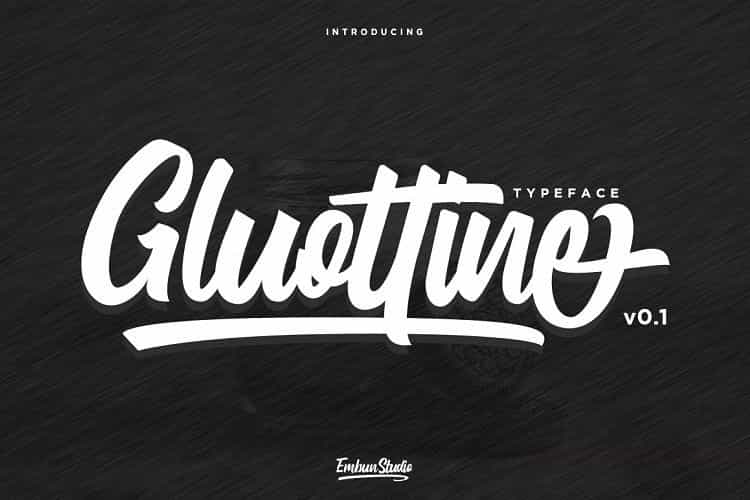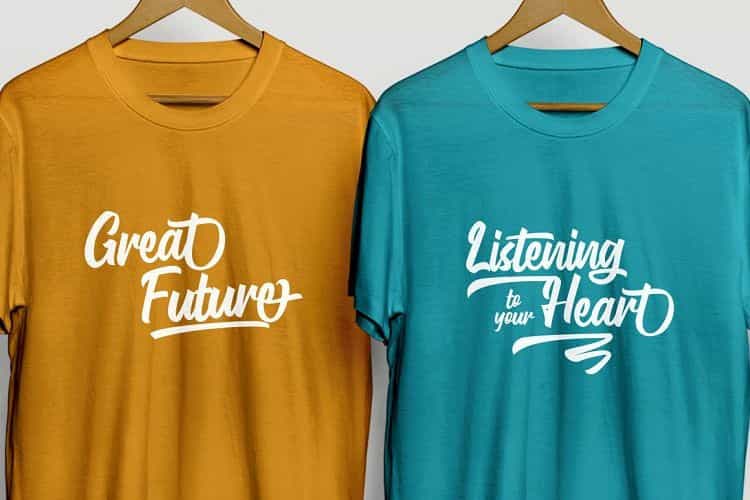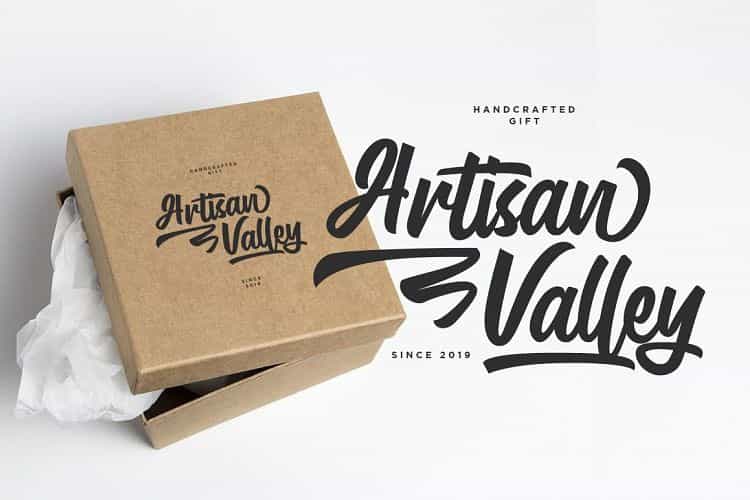
Discover Gluottine Font, part of the Brush Calligraphy collection—a versatile and unique font perfect for adding a personal touch to your projects. Download it for free and enjoy crafting designs with style, from invitations to social media posts. This font is available exclusively for personal use, giving you the freedom to create without limits. Unlock your creativity with Gluottine Font today!
Gluottine Font is a new fresh font of calligraphy handmade fonts that you can use in your projects. This font is perfect for branding and use it for any project, is perfect for wedding invitation or your blog. With their help, you can make a logo or a beautiful frame for your home or other constructions. Or just for your small business, for book covers, for stationery, for marketing, for magazines and much more.